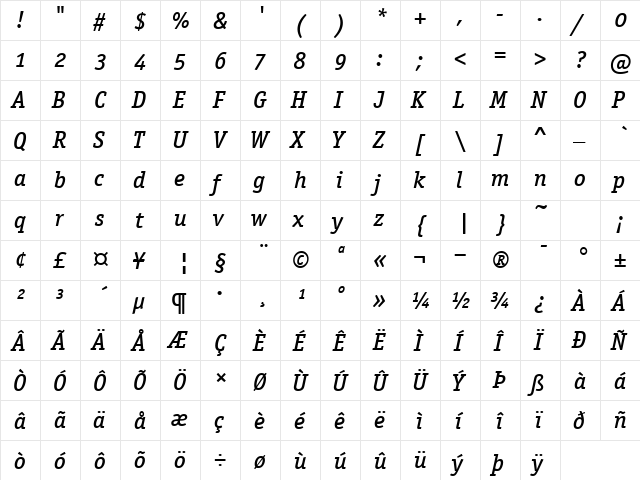
OfficinaSerOSITCTT MediumIta
| Foundry | International Typeface Corporation |
| Designer | Erik Spiekermann/Ole Schaefer |
Design Context for OfficinaSerOSITCTT Typeface
OfficinaSerOSITCTT is a composed and adaptable typeface that performs quietly and consistently across a wide range of design contexts.